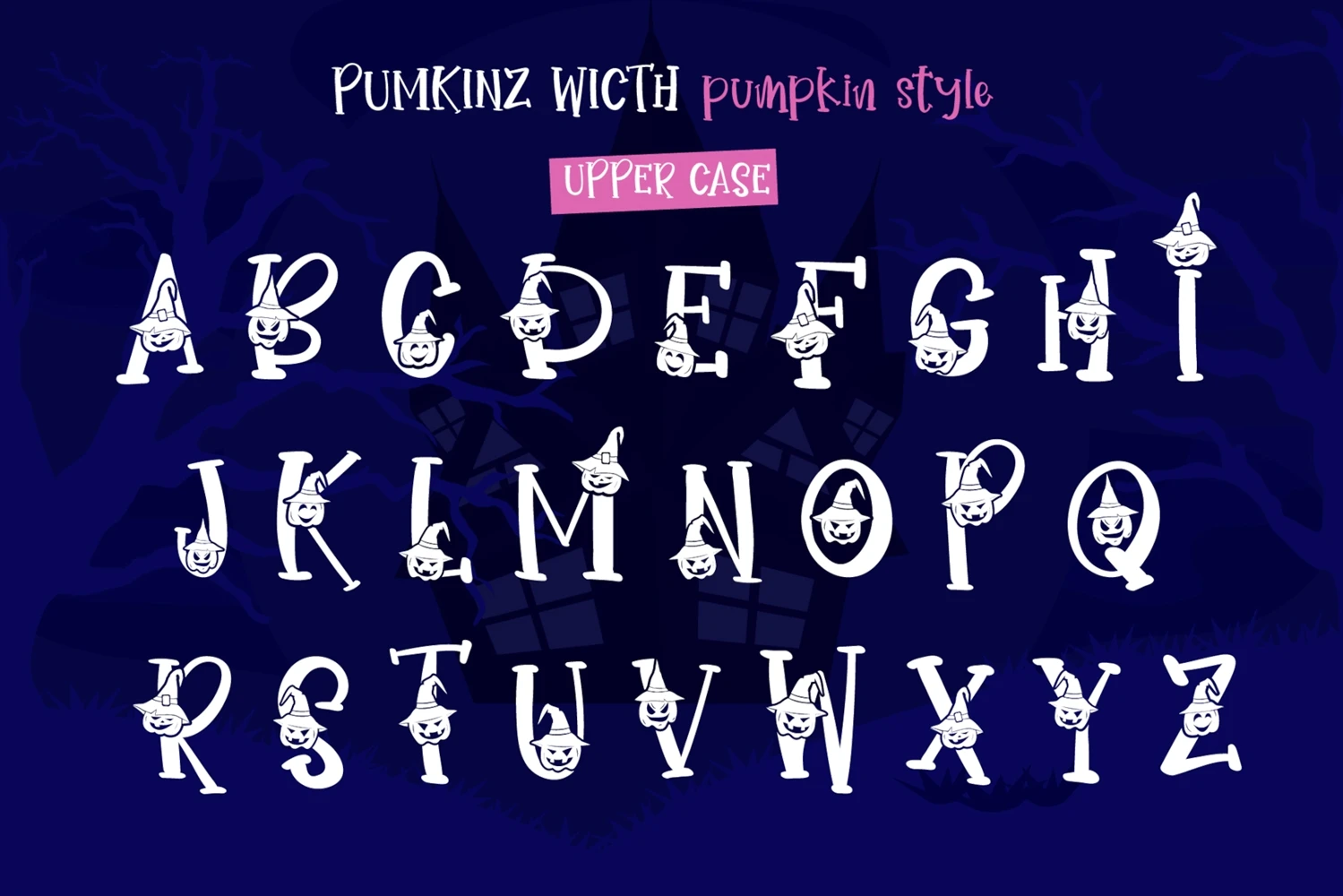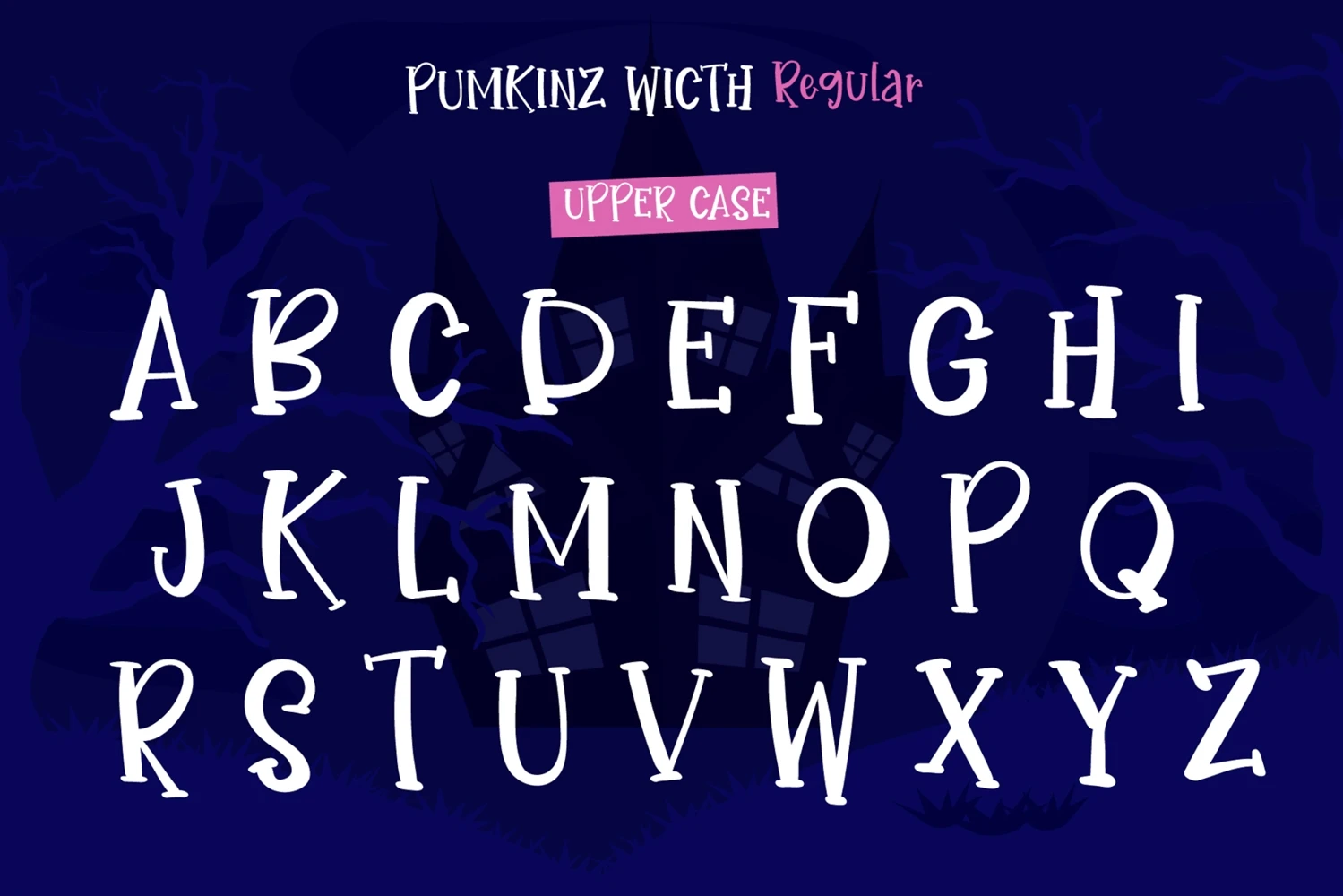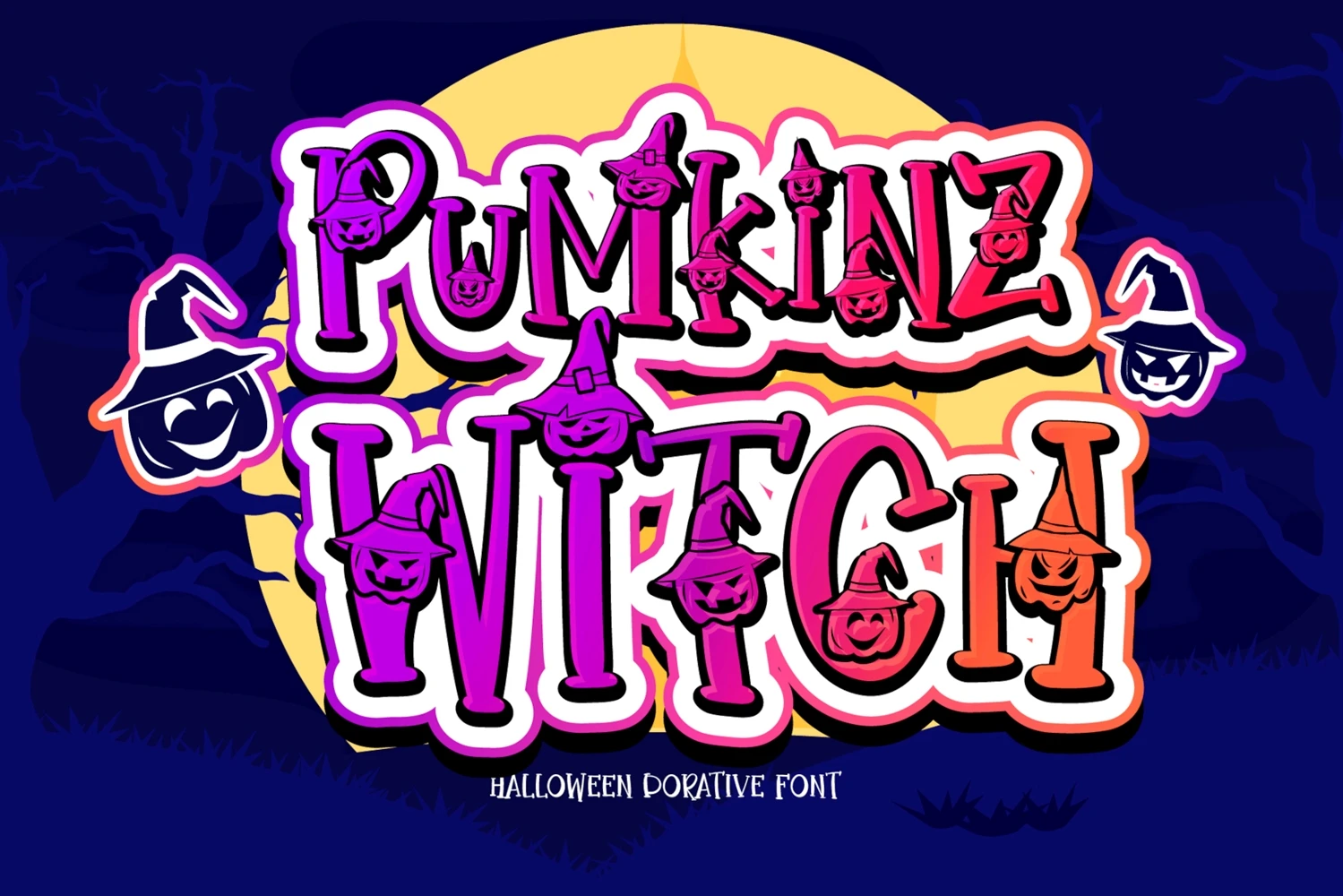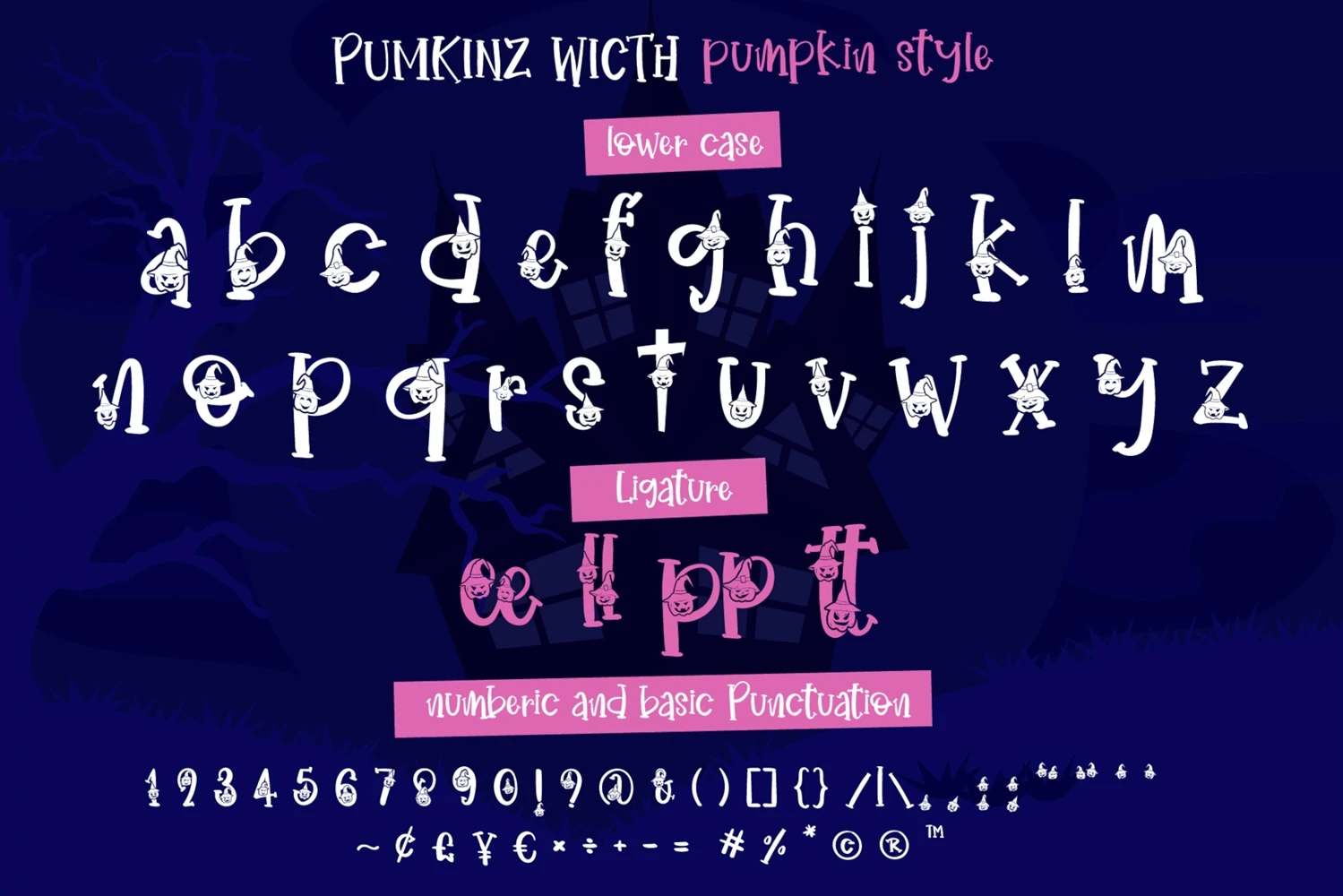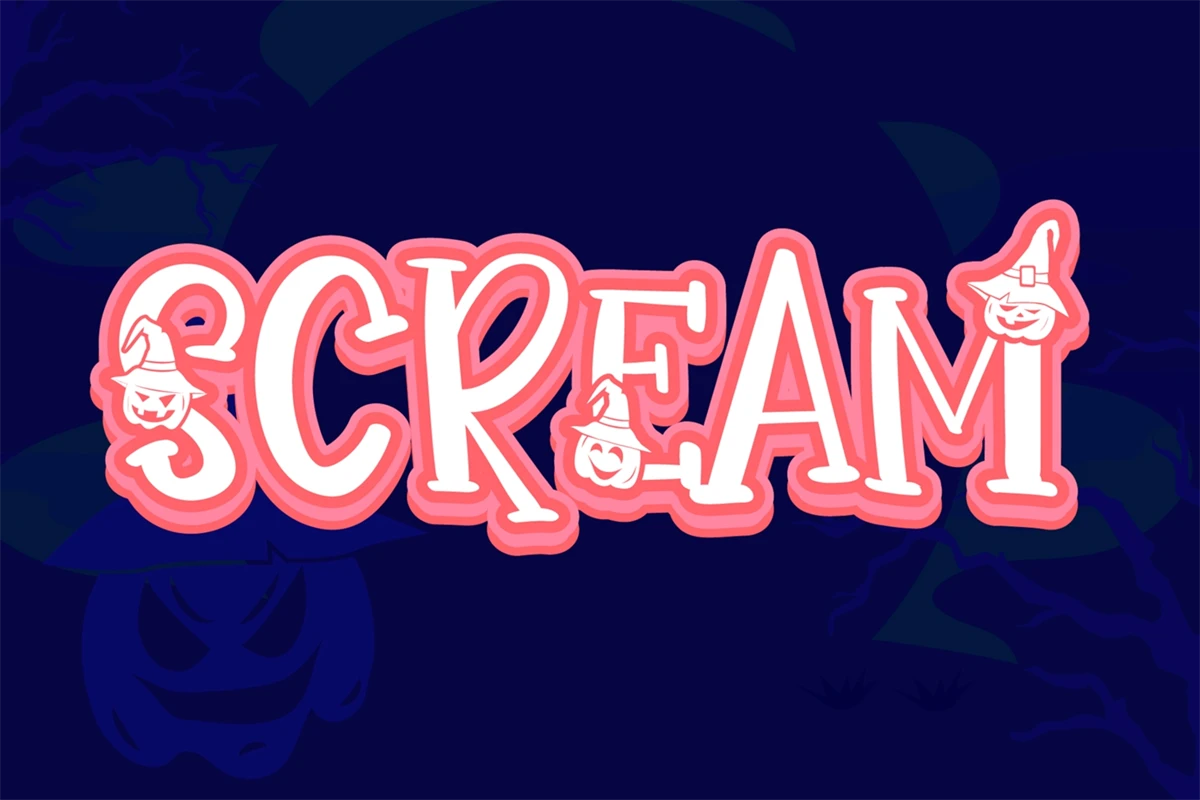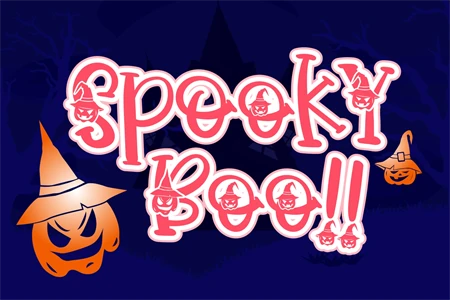
PumKinz Witch is a quirky and highly detailed decorative font. Whether you are using it for cartoon-related designs, children games, quotes, titles, brand names, book covers, posters, or just any creation that requires a touch of joy, this font is a great choice.